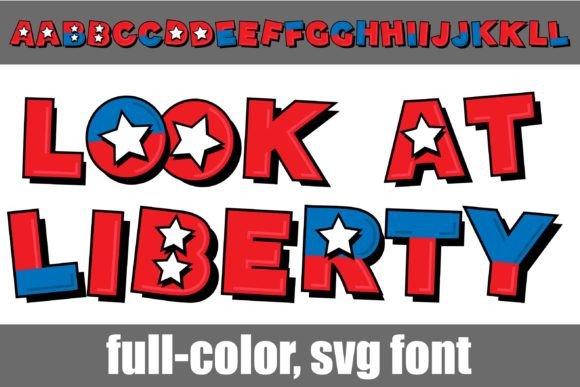
Flick your artistic eye toward Look at Liberty, a font that's bold and bursting with retro-inspired charm. Its blocky letters, playfully cast in red, white, and blue, exude a vintage allure that's sure to add a touch of nostalgia to your creative endeavors.
Crafted by Illustration Ink, this full-color font oozes personality and verve, making it a standout choice for those seeking a logo font that's anything but ordinary. Whether you're designing for a patriotic project or simply want to infuse your work with a dash of playful energy, Look at Liberty is your ticket to visual success.
Experience the versatility of Look at Liberty's two-color design, allowing you to create captivating logos, eye-catching headlines, and vibrant social media graphics that demand attention. Its charming retro aesthetic adds depth and dimension to your designs, setting them apart from the crowd.
Unleash your creativity with Look at Liberty's hidden gem – an alternate version accessible via your system's character map. Explore a rainbow of additional colors for each letter, unlocking endless possibilities for customization and artistic expression.